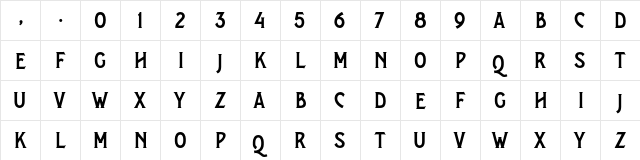
Salveation Serif Regular
| Foundry | Runsell Studio |
| Designer | Edi Gunawan |
Design Context for Salveation Serif Typeface
Salveation Serif brings classic typographic sensibility to the table — its serifs and measured letterforms reflect centuries of print heritage.